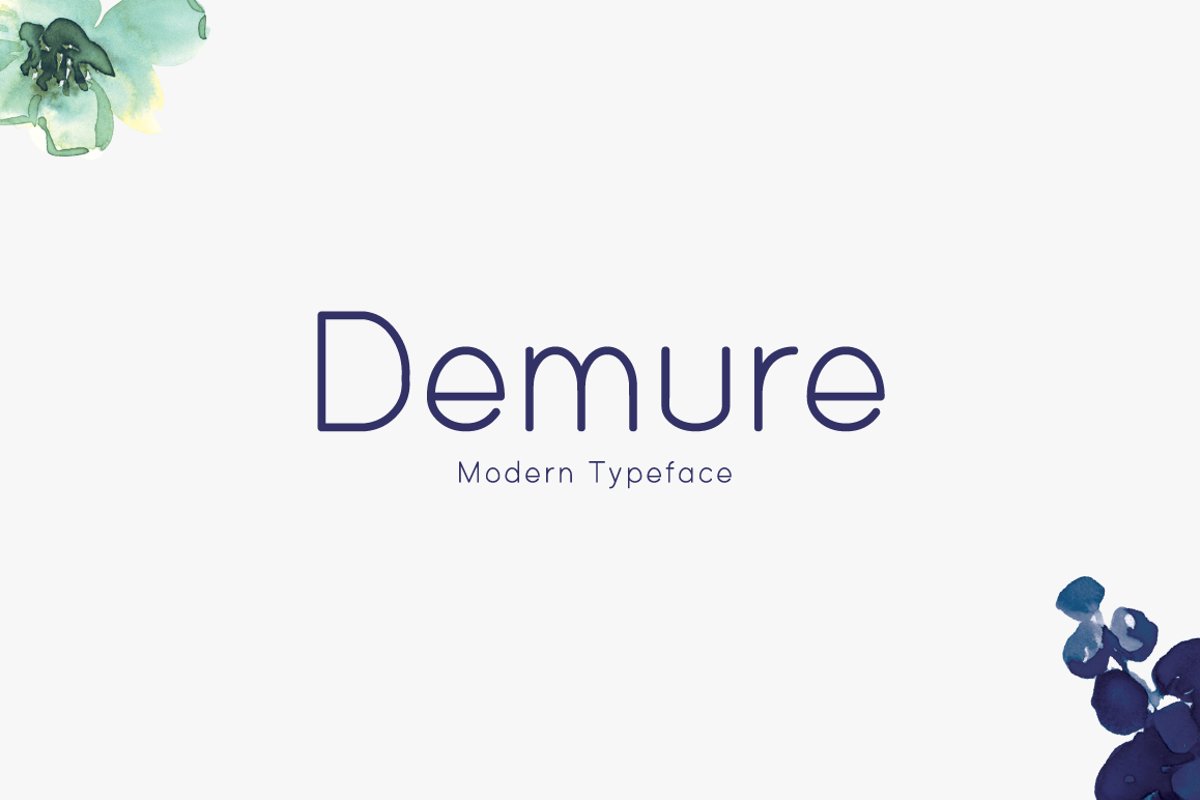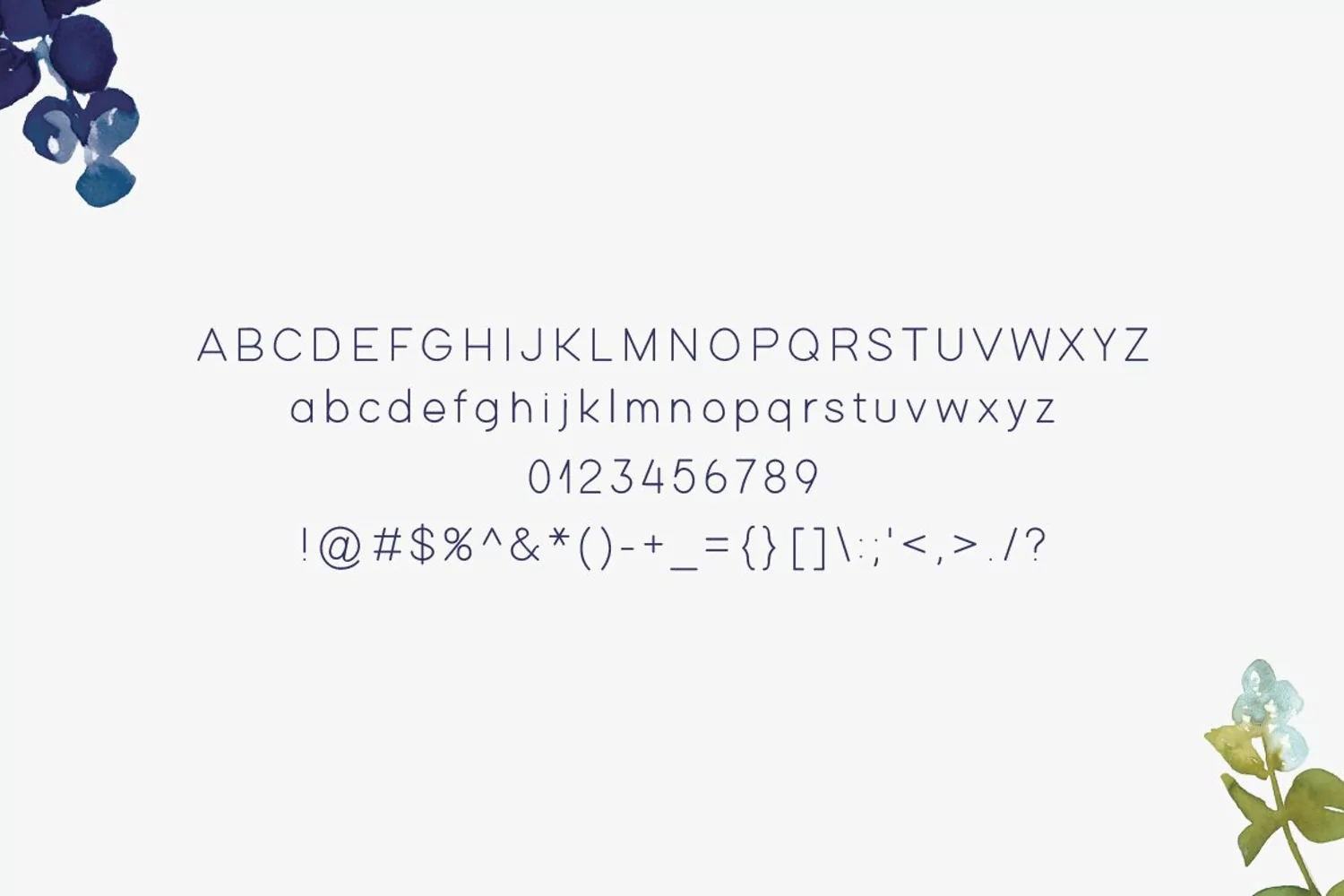
Introducing Demure!
Demure is a brand new modern font. Demure is perfectly suited for stationery, logos, t-shirt, paper, print design, website header, photo frame, flyer, music cover, poster, image slider and much more.